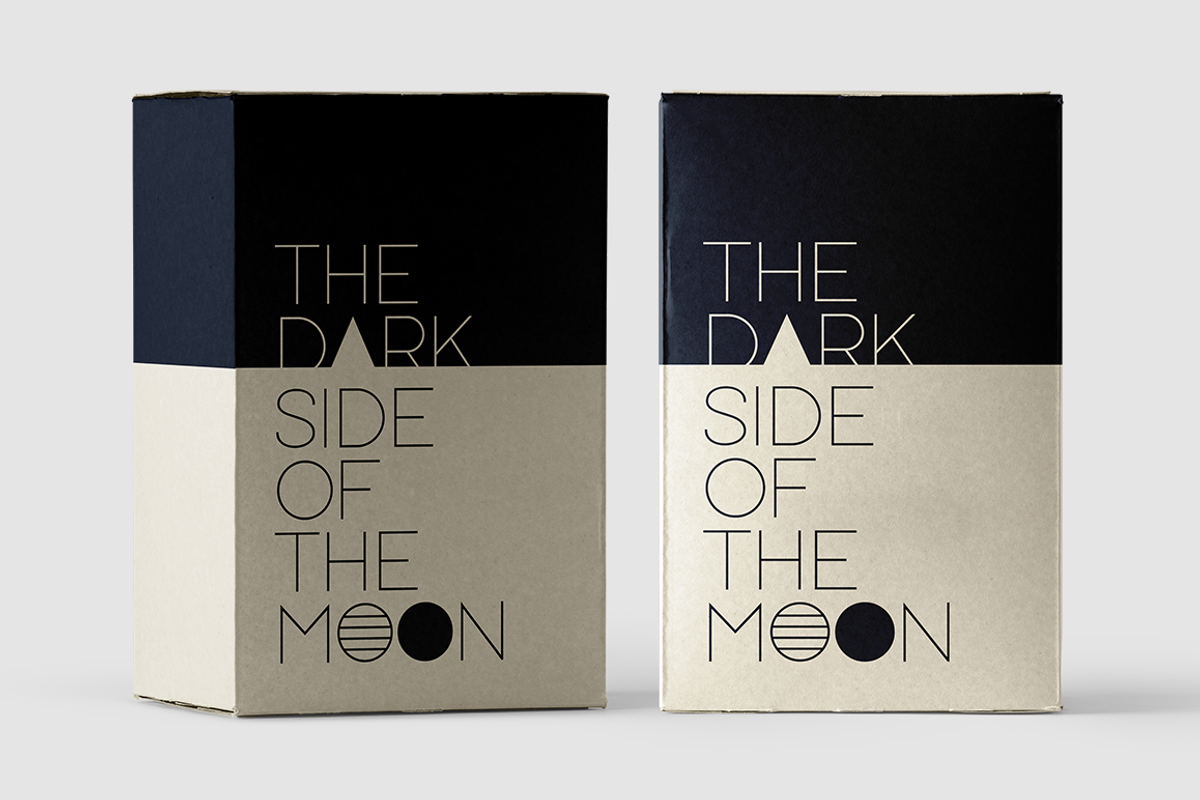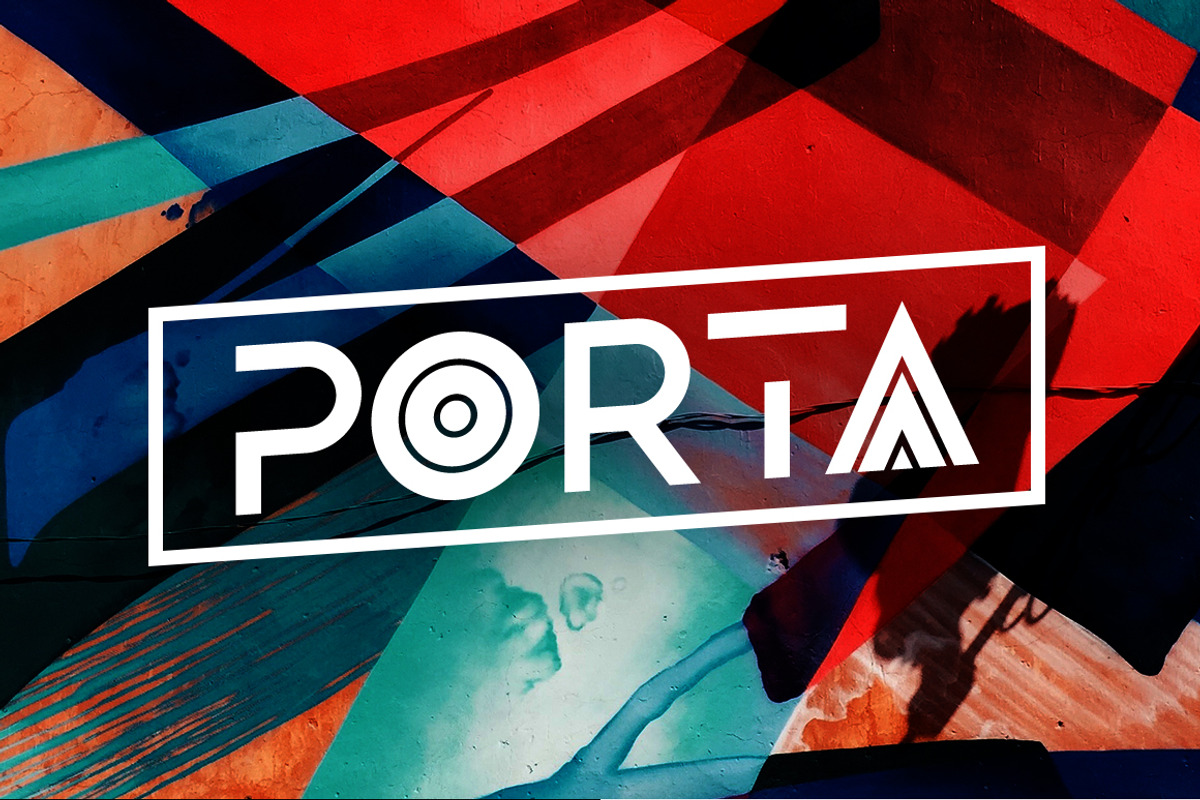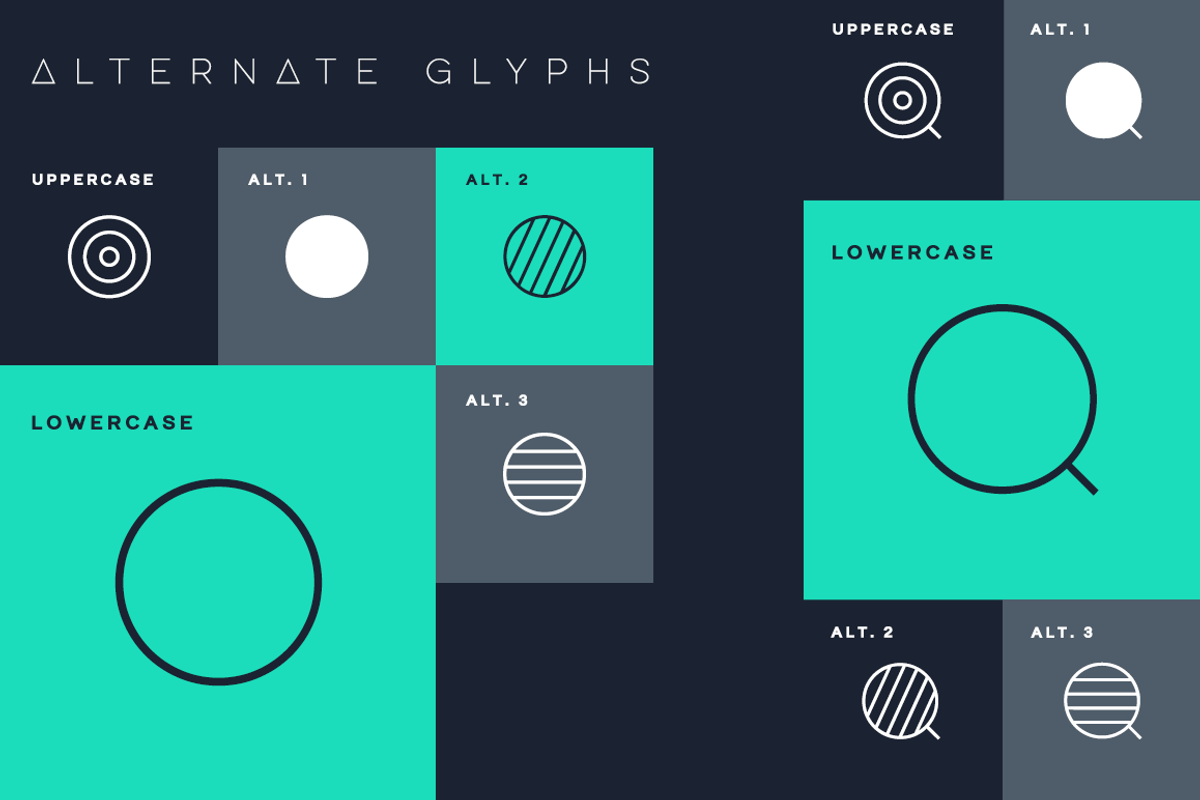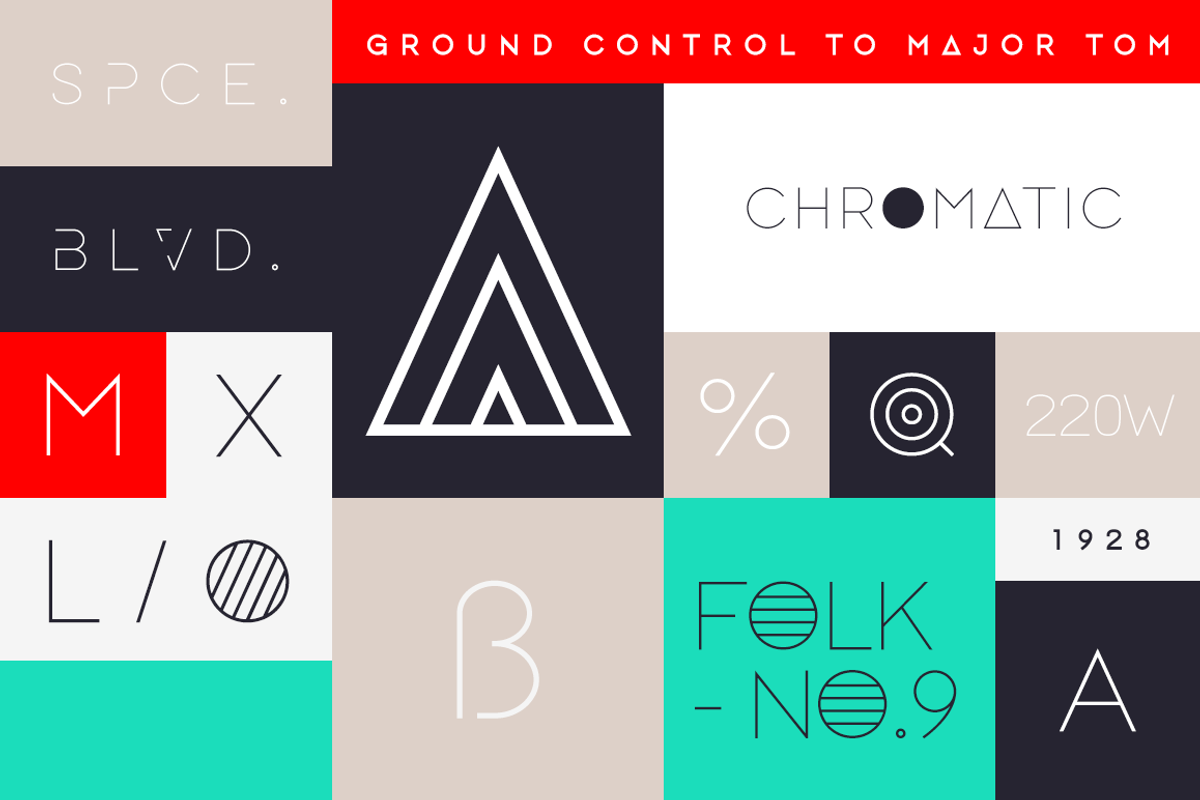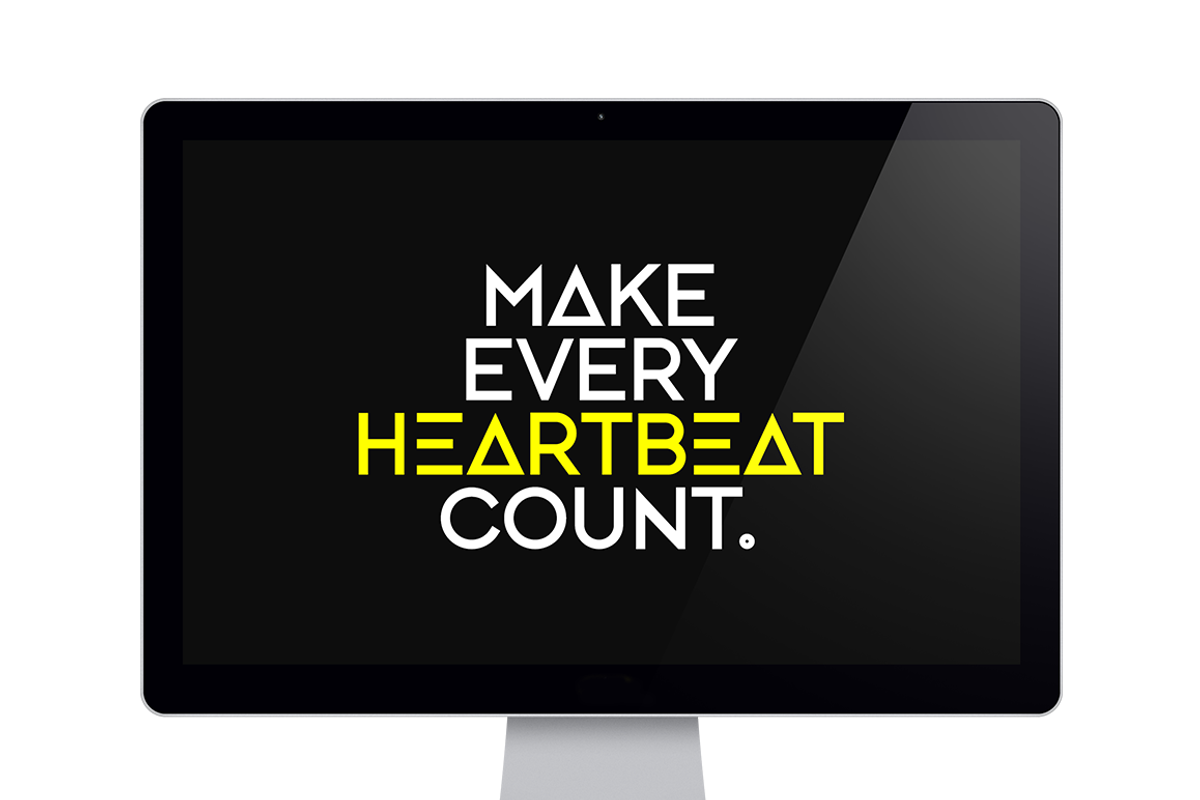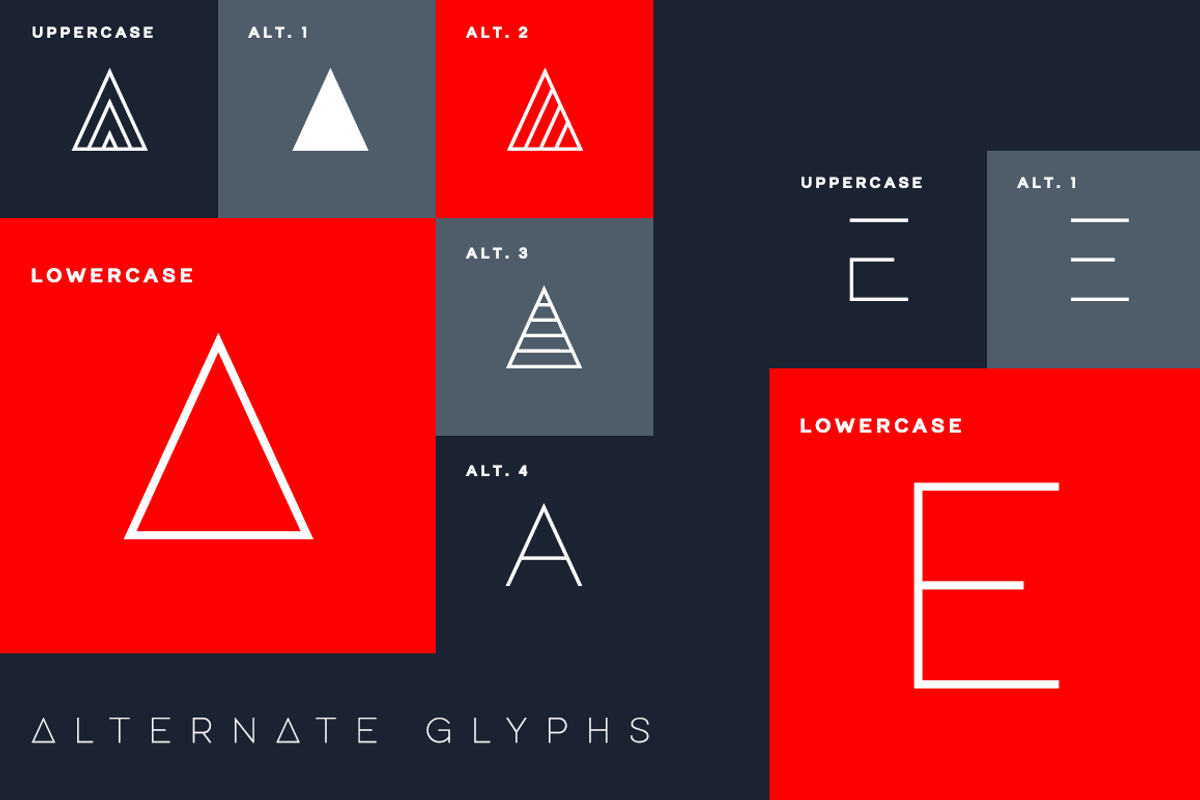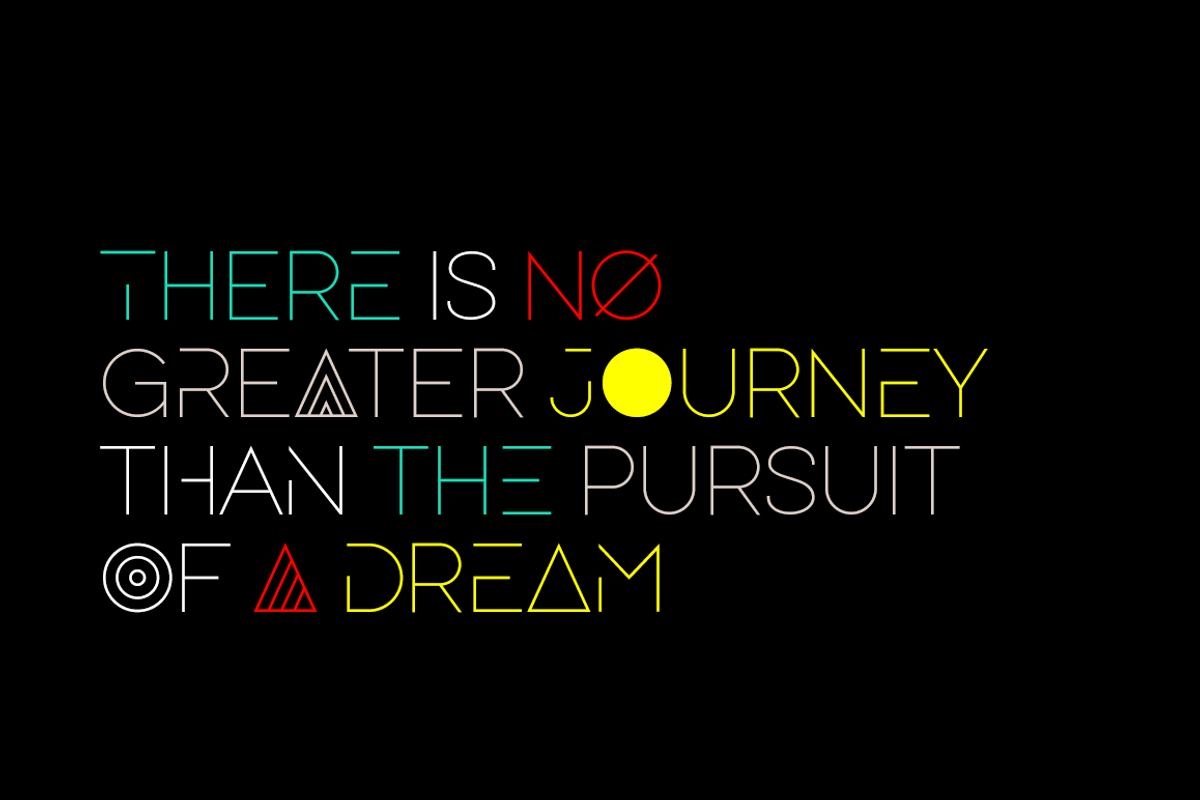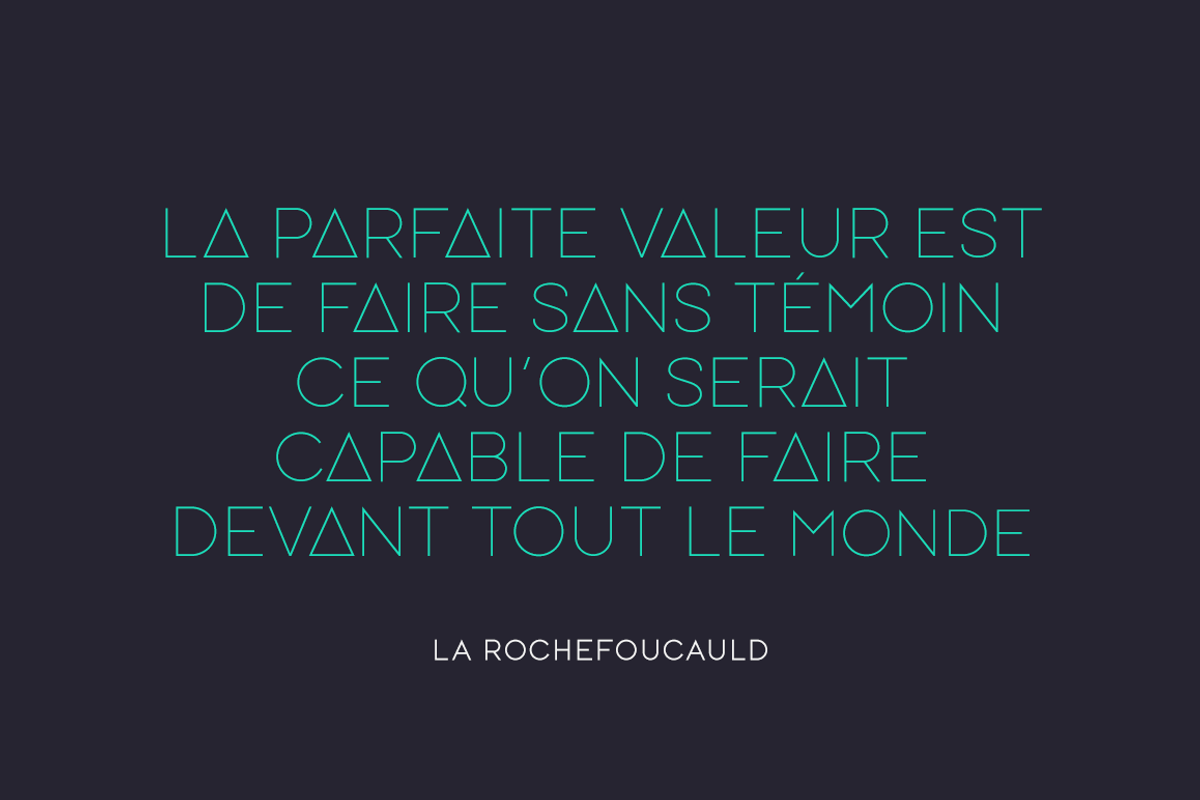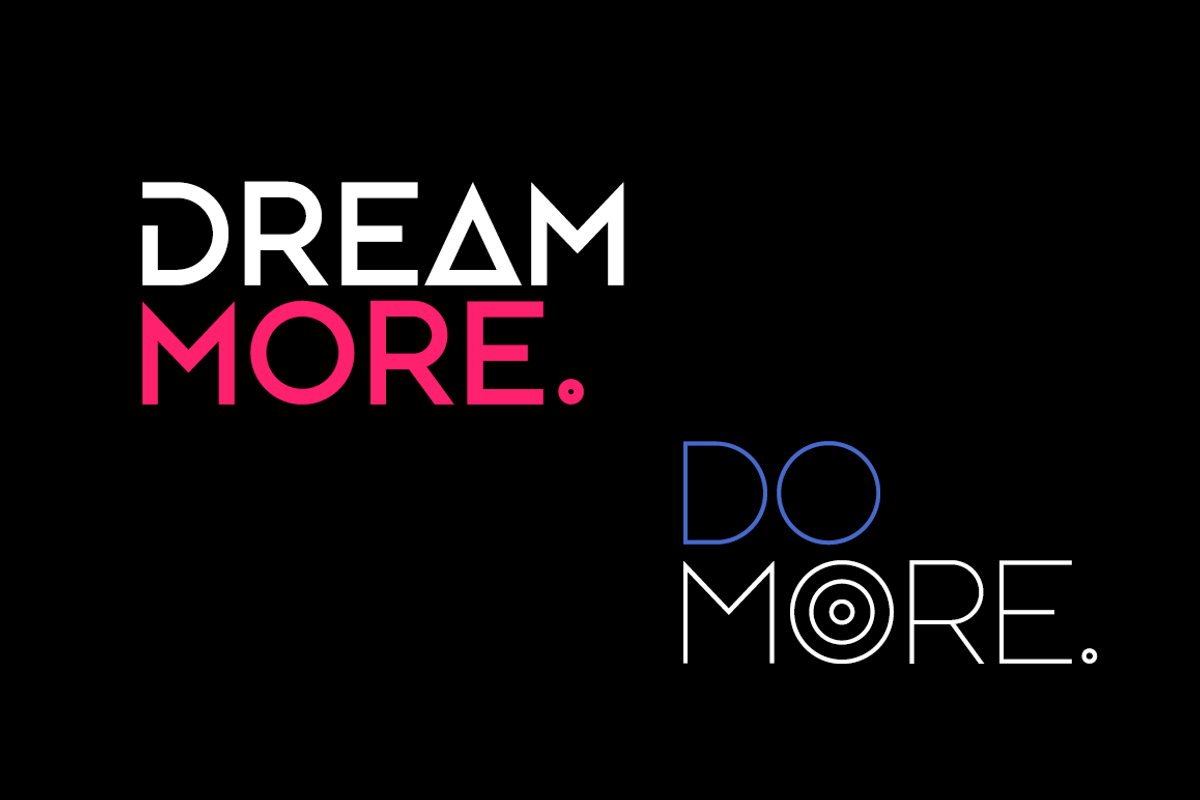
Porta - Creative Sans
PORTA SANS SERIF FONT | Fun geometric sans
Creative, minimalist, and balanced. Porta is all caps sans serif that will look stunning for your designs. It presents a simple clean tone that’s confident yet smooth. It also combines futuristic and geometric touch to resemblance a balanced proportion.
- Porta Light
- Porta Bold
- Uppercase in 2 styles
- Creative alternates for A E O Q